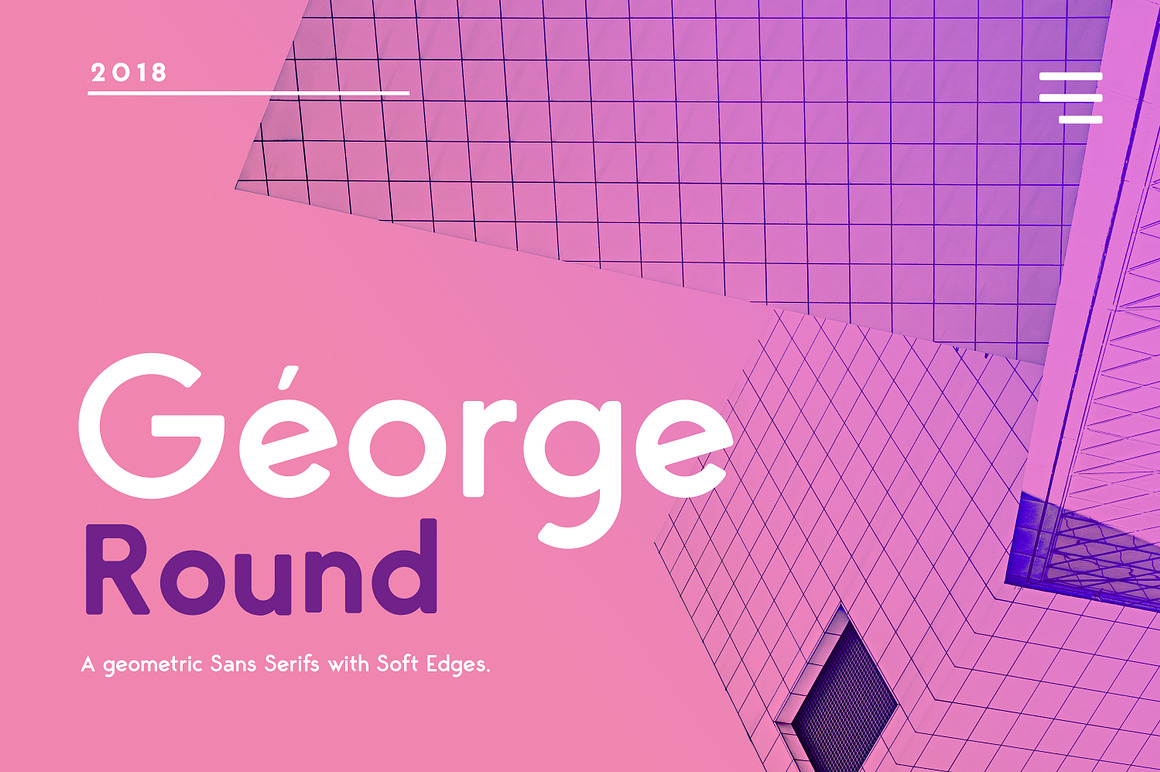
George Round Typeface
George Round Typeface is perfect for friendly brand identities, children's products, healthcare communications, educational materials, family-oriented businesses, wellness centers, community organizations, approachable tech startups, casual dining restaurants, playful packaging design, social service agencies, and warm corporate communications.
What makes George Round Typeface exciting is its gentle approachability that combines geometric precision with soft, rounded edges to create the perfect balance of professionalism and warmth. This thoughtfully crafted typeface takes the systematic clarity of geometric design and humanizes it through carefully rounded terminals and friendly curves that invite connection and trust. The font's welcoming character and optimized legibility make it ideal for organizations that need to communicate authority while remaining accessible and non-intimidating. Its versatile personality works beautifully across serious professional contexts and playful consumer applications, making it perfect for brands that value both competence and compassion.
The George Round Typeface family includes thin, light, regular, medium, semibold, bold, and black weights, each available with corresponding italic styles. The comprehensive family features condensed variations and extended styles, providing designers with complete typographic flexibility for systematic brand applications while maintaining the font's characteristic warmth and accessibility.